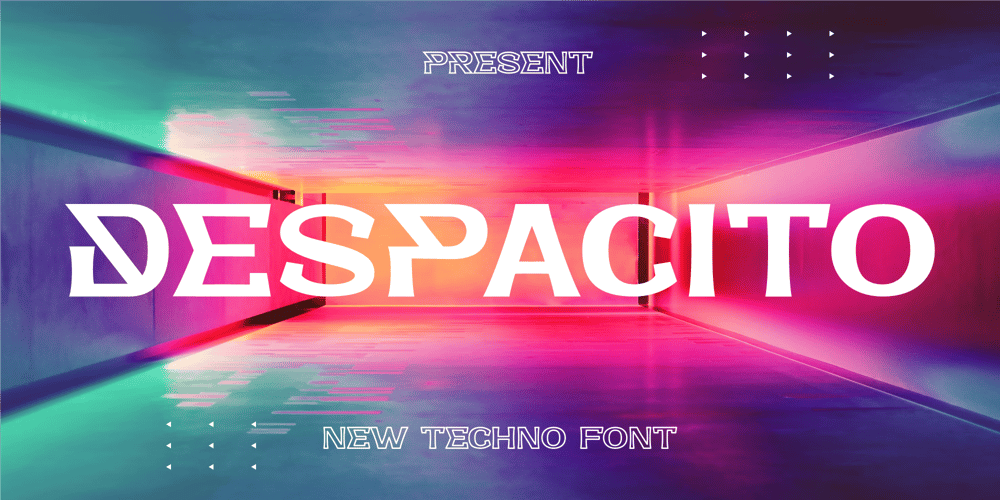
Despacito Font Family was designed by Hunaiza Aljahsy and published by HunaizaAljahsy. Despacito contains 1 styles and family package options. INTRODUCING Despacito!!Despacito is a bold modern display font with serif style. It’s modern and classic font with a unique and deference look . Perfect if you need a dose of fun in your project. Perfect for editorial projects, Logo design, web font, clothing branding, product packaging, magazine headers, or simply as a stylish text overlay to any background image.